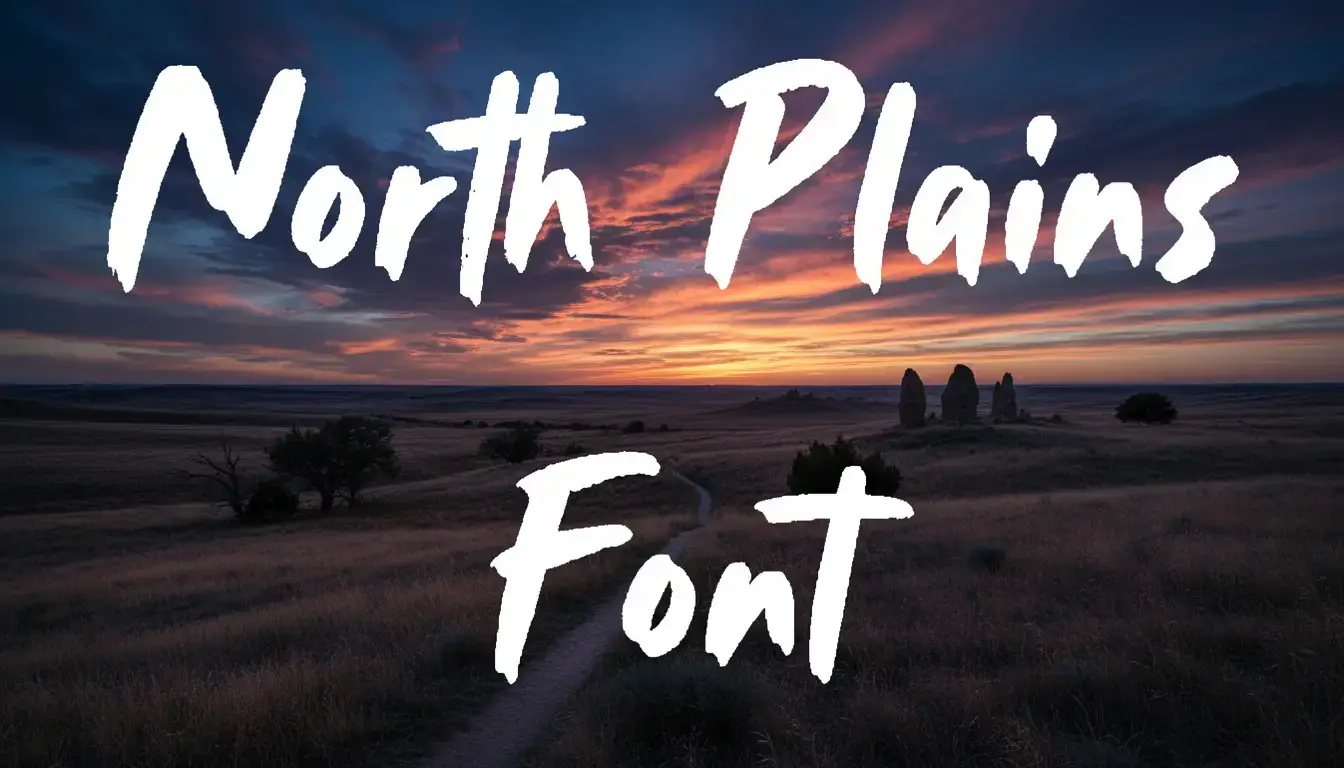
North Plains Font
North Plains
North Plains is a script font designed by Alpaprana Studio. Its flowing, pen-made letters give names and short phrases a personal, polished look. It's a free download, and you can try it with your own text in the preview above first.
What You Can Type With North Plains
North Plains covers the full alphabet in upper and lowercase, plus all ten numbers, so you can set names, dates and prices without switching fonts. Everyday marks like &, !, ? and @ are there too. Thanks to its accented letters, it also works for Spanish, French, German, Portuguese and Italian, not just English.
Where North Plains Works Best
North Plains is a natural fit for wedding invitations, logos and signature-style headings. Script fonts read best in short bursts, so keep it to names, titles and one-line quotes. Skip all caps: script capitals are drawn to start a word, not to fill one.
Does North Plains support accented letters?
Yes. North Plains includes the accented letters needed for Spanish, French, German, Portuguese and Italian, so it works for more than just English.